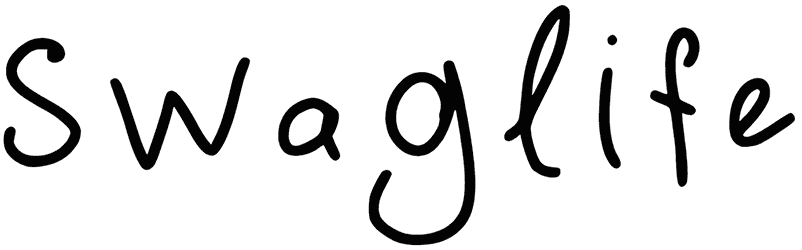
Swaglife Font
Use the handwritten font Swaglife if you want to leave a lasting impression on your readers. The use of this delicate, childlike font in digital work has the potential to inspire more recklessness and originality.